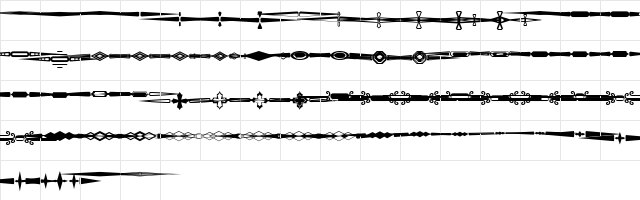
TFDashes Regular
Design Context for TFDashes Typeface
TFDashes is a composed and adaptable typeface that performs quietly and consistently across a wide range of design contexts.